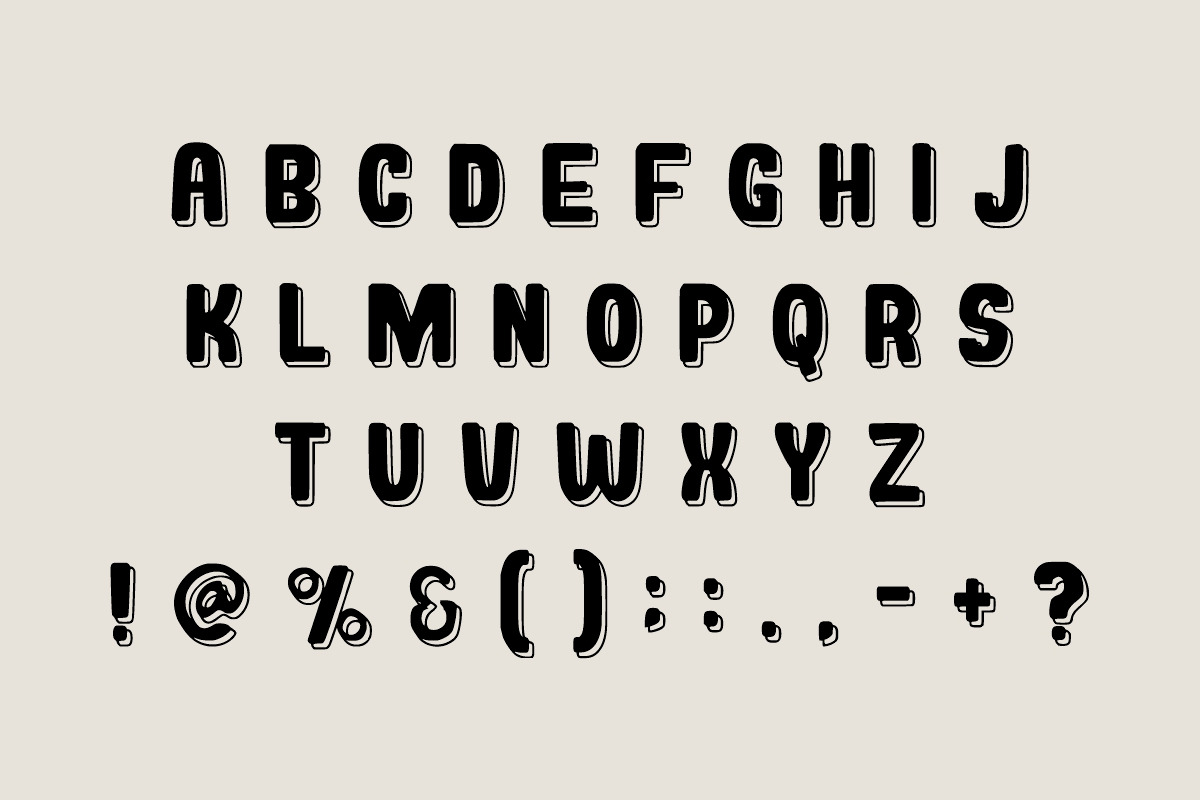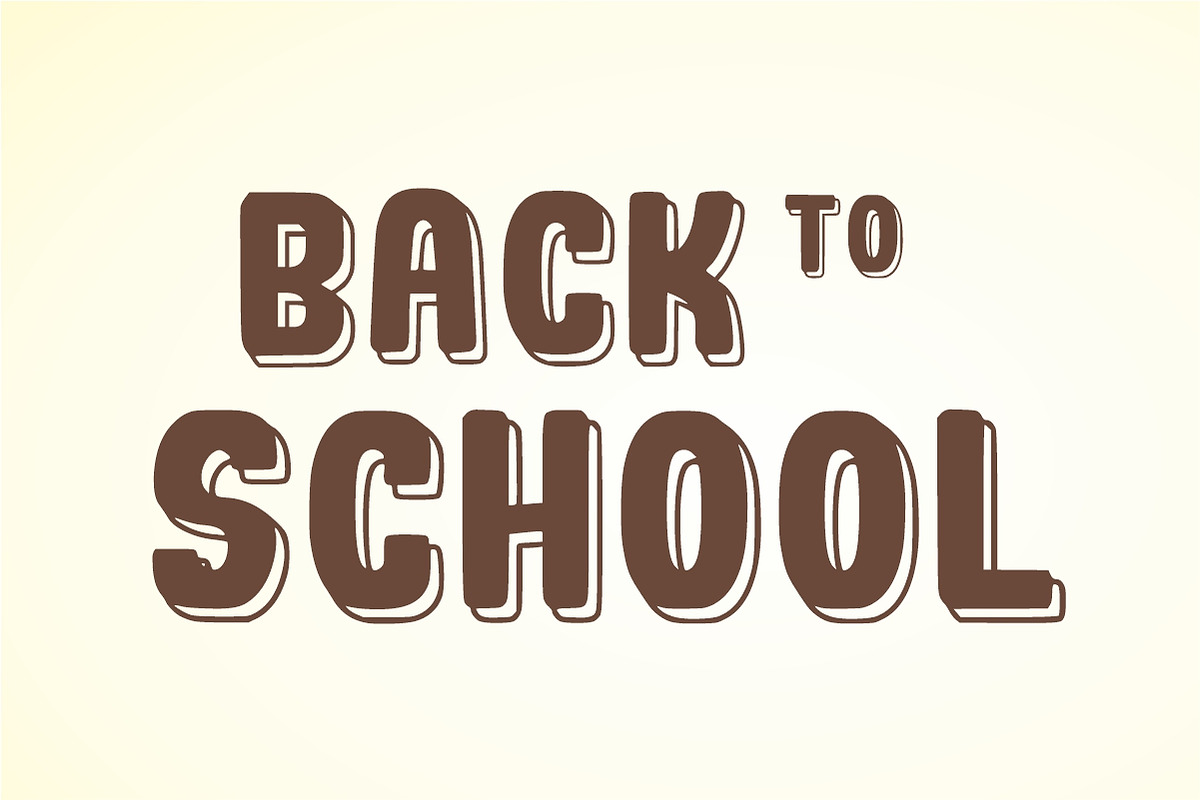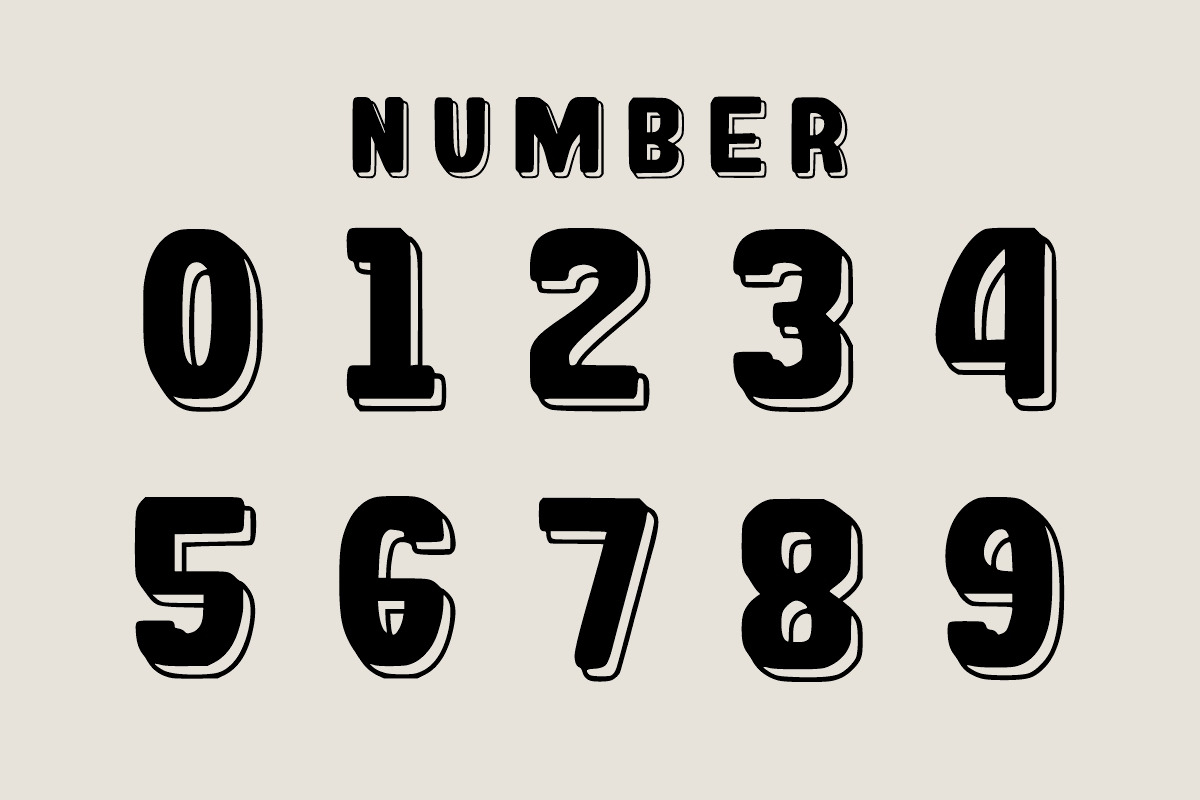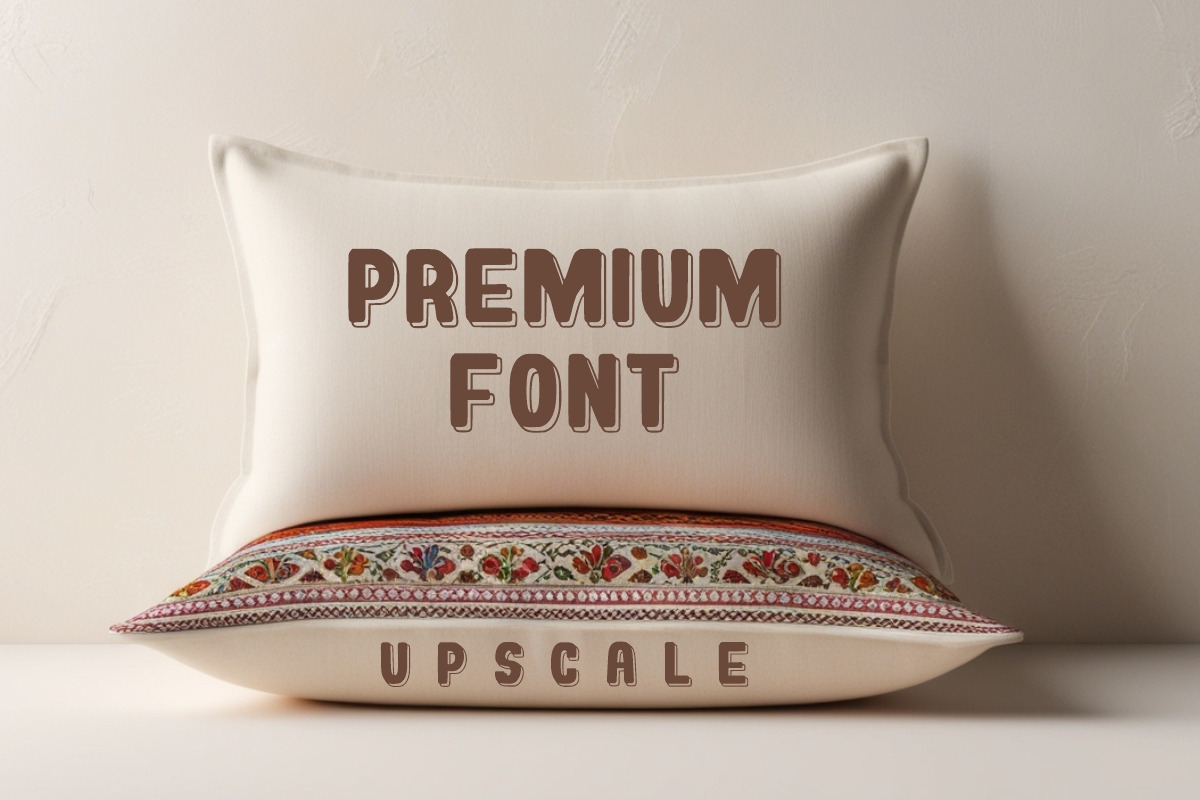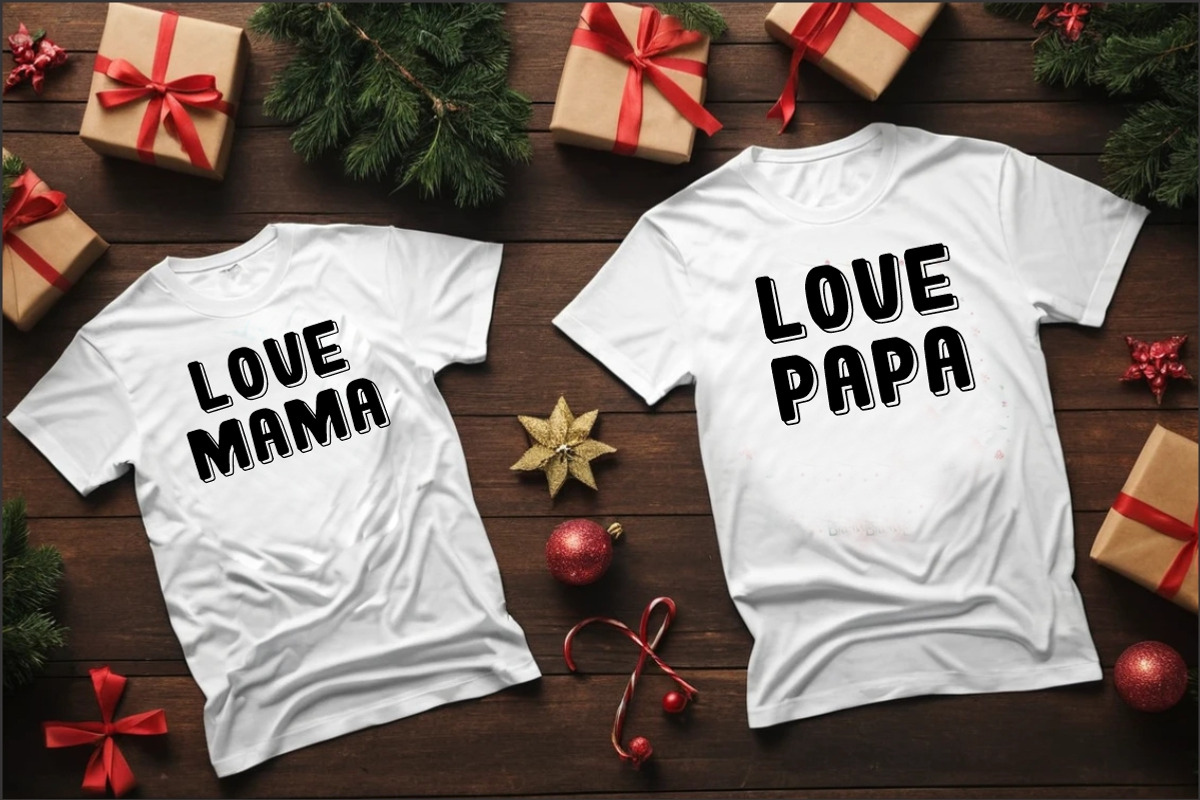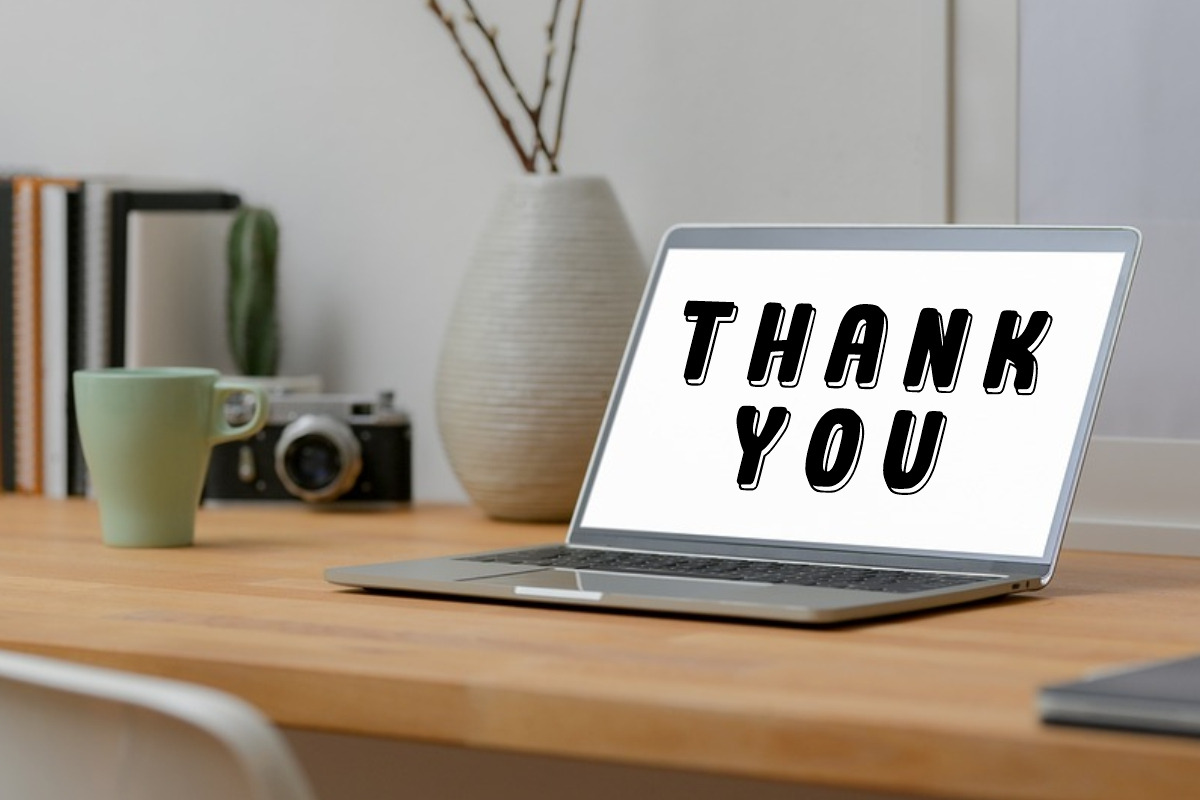
Happy Sunday
Happy Sunday is perfect for those of you who want the style of children. The perfect font for designing t-shirts, tote bags, hats, stickers, wedding invitations, logos, cards, quotes, and more!